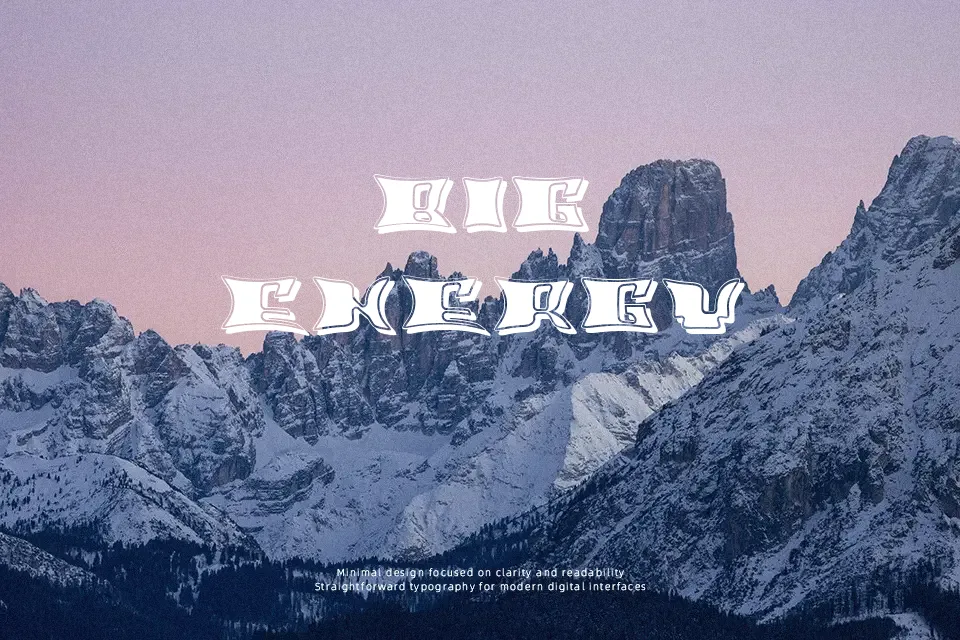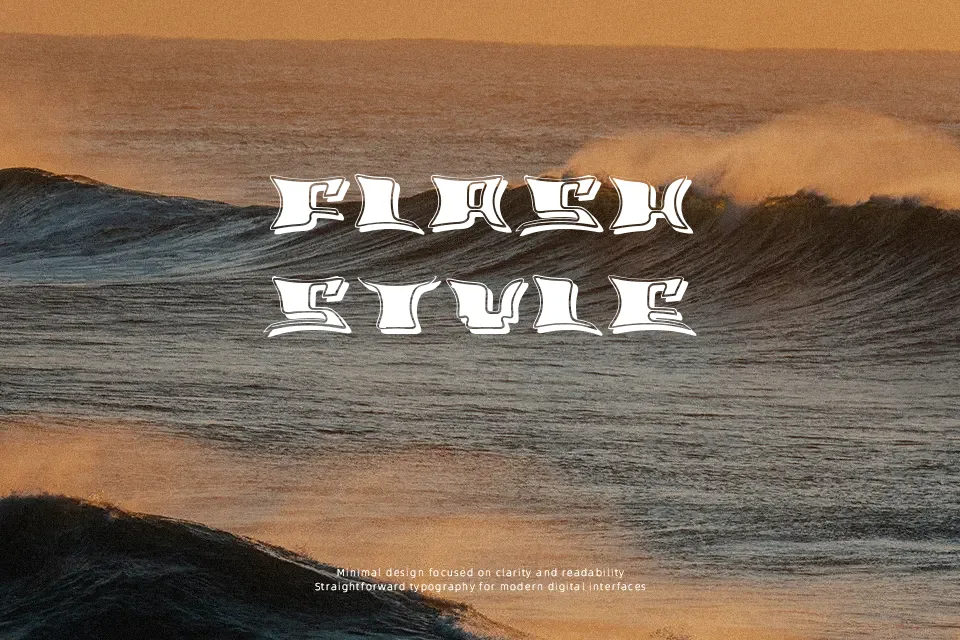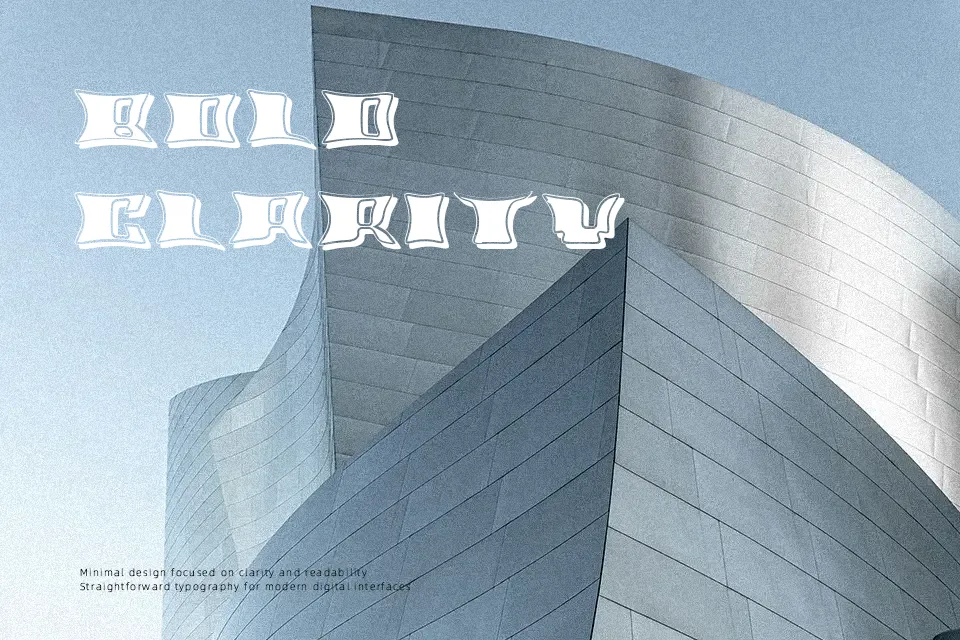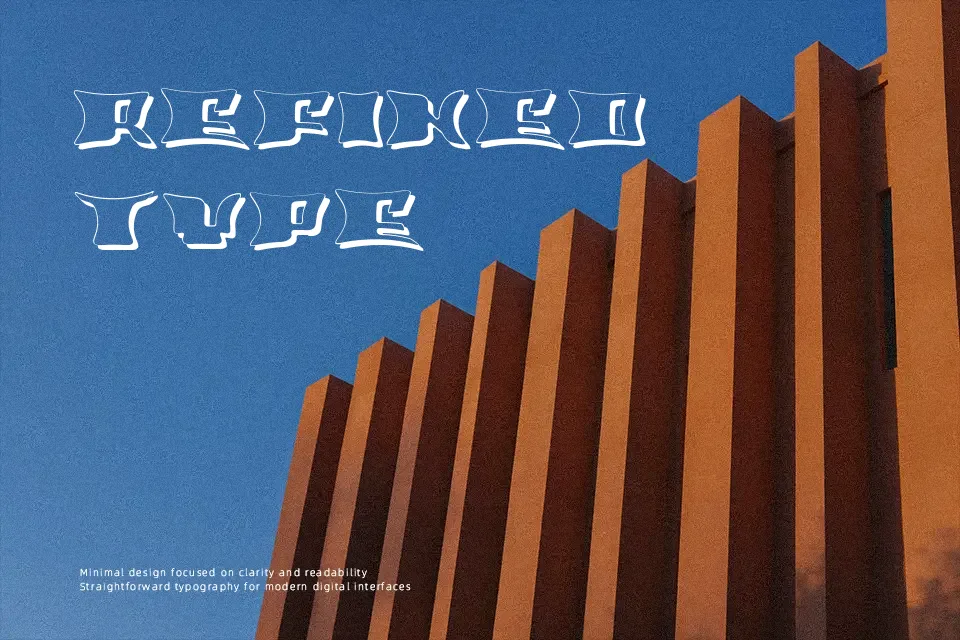
Ritual Font
A short product label or poster headline benefits from the commanding presence of Ritual Font, an extra-bold display typeface featuring distorted, slightly irregular stroke edges. The expanded proportions and heavy weight create a dense block of text, while tight spacing enhances visual impact in large scenarios. The letterforms display a raw, almost hand-carved quality with sharp details, adding a dark aesthetic to the design. These thick strokes improve visibility in posters, making the typeface highly effective for striking album covers, apparel graphics, and packaging. However, the dense forms reduce comfort during extended reading, and the intricate, eroded edges lose clarity at smaller sizes, rendering the design entirely unsuitable for continuous body text.
apparel graphics
album cover art
bold product packaging
spreadsheet data
Perfect for headline, music, and packaging, with a bold and decorative style.